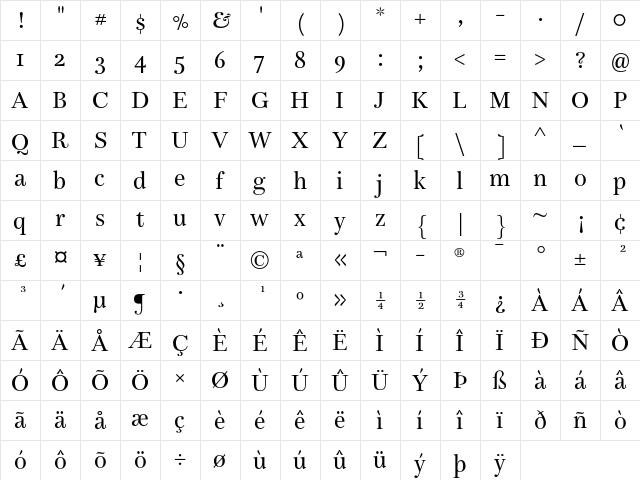
Bohemia LT Std Regular
| Foundry | Linotype GmbH |
| Designer | Eduardo Manso |
Design Context for Bohemia LT Std Typeface
Bohemia LT Std is a composed and adaptable typeface that performs quietly and consistently across a wide range of design contexts. Its slender proportions lend an understated elegance to any composition.